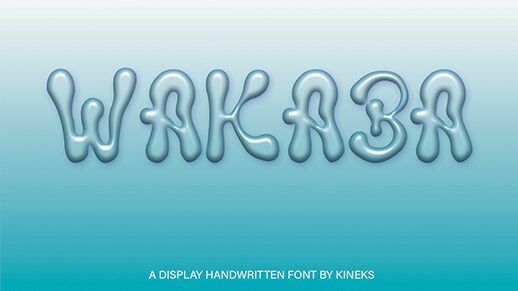
Wakaba
Wakaba, the groovy display font designed by Bykineks, is here to make a bold statement. With its thick and striking letters, this font is perfect for projects that demand attention. Its retro style adds a touch of funkiness to any design, making it suitable for branding campaigns, posters, album covers and more. This semi-bold typeface can also be used for headlines and titles in magazines or websites. With Wakaba, you'll stand out from the crowd while keeping your message clear and legible. Get ready to add some groove to your next project with Wakaba!